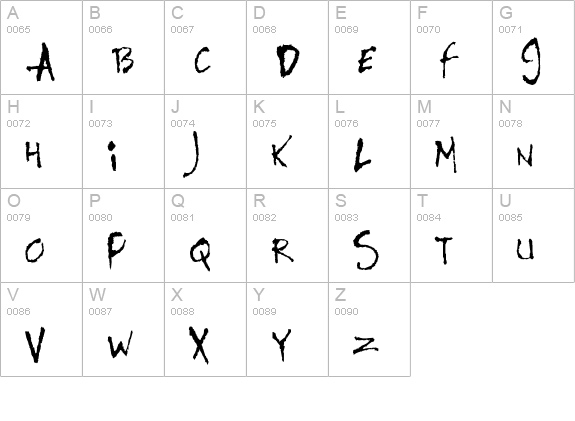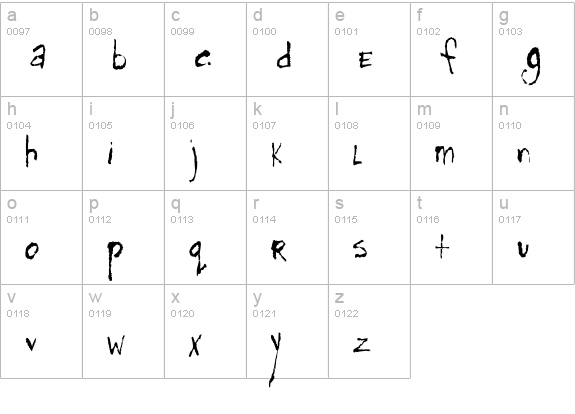
Introducing the majestic and elegant Horse font, a timeless typeface that exudes strength and beauty. With its sleek curves and bold strokes, Horse font is perfect for adding a touch of sophistication to your design projects. This versatile font is ideal for various applications, from branding to editorial design. What's even better is that Horse font is available for free! Yes, you read that right - you can download this stunning font at FontsMarket.com without spending a dime. Embrace the power and grace of the Horse font in your next creative endeavor and watch your designs come to life. Don't miss out on this amazing opportunity to elevate your projects with this exquisite typeface.